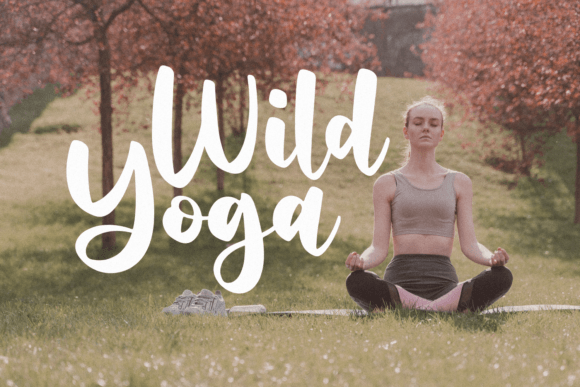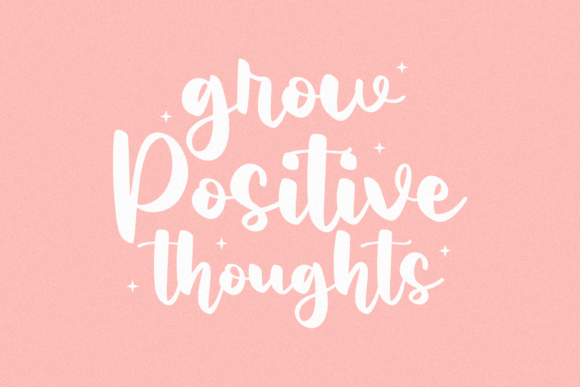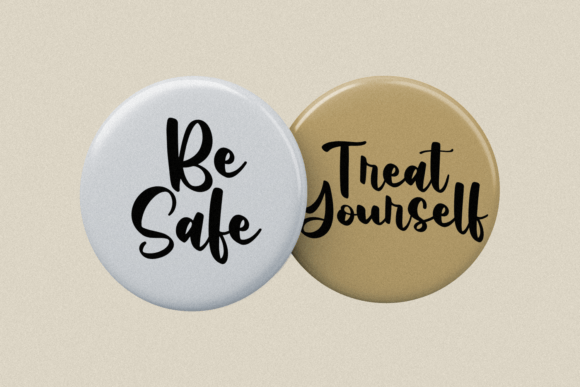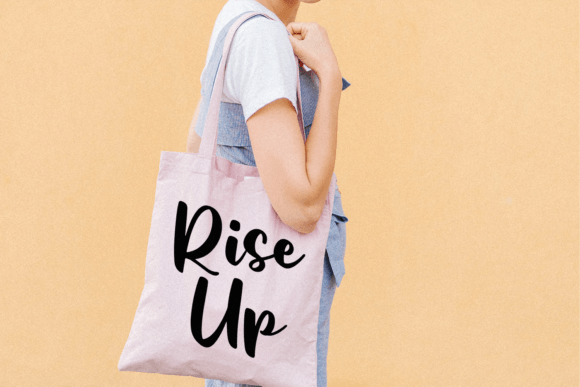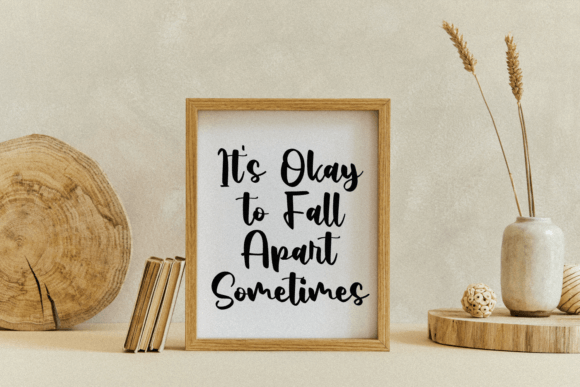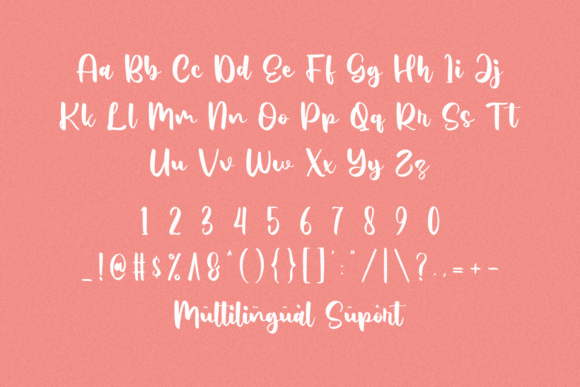
Introduction to Eastlove Font
Have you ever been brainstorming a creative project and suddenly a font pops into your mind, setting the tone for the entire design? For many designers, that moment is what makes all the difference. It’s the spark that ignites the imagination and propels the project forward. For me, that moment came when I discovered the Eastlove Font.
This beautiful handwritten script font is a game-changer for any design project that requires a touch of elegance and sophistication. With its classic, boho, and feminine vibe, the Eastlove Font is perfect for everything from wedding projects and signatures to album covers and logos. Whether you’re looking for a high-quality design resource or just want to add a personal touch to your social media posts, this font is a must-have in your collection.
Key Features of Eastlove Font
- High-quality design resource ideal for creative projects and personal use.
- Comes with transparent background, making it perfect for layered designs and seamless blending.
- Font size: 1000 glyphs, ensuring a comprehensive set of characters for diverse creative projects.
- Unique, stylish design that adds a touch of elegance to any project, making it a standout design resource.
Honest Review: Eastlove Font
What works well: ✨ The Eastlove Font offers a high-quality design that’s perfect for modern designs. The font is highly customizable, making it ideal for logo designs and branding materials. The font also comes with a transparent background, which is a great feature for designers who want to create seamless designs.
Here are some of the key features of the Eastlove Font:
- Perfect for modern designs
- Customizable
Limitations: ⚠️ The Eastlove Font is limited to a single weight and style, which may not be suitable for designers who need a wide range of font options. Additionally, the font may not be compatible with all design software.
Overall, I’m impressed with the Eastlove Font. It’s a great resource for designers who want to add some style to their creative project without breaking the bank. While it has some limitations, it’s a solid choice for anyone looking for a high-quality font.
Tips for Getting the Most Out of Eastlove Font
To get the most out of Eastlove Font, use it in creative projects such as invitations, posters, and social media graphics. You can also use it in conjunction with other design resources, such as images and graphics, to create high-quality designs. Additionally, consider using Eastlove Font in free download templates to save time and enhance your designs.
Eastlove Font is commonly used in design projects that require a unique and creative touch. Some common use cases include:
- Event posters and flyers
- Social media graphics and banners
Alternatives to Eastlove Font
The Great Vibes Font is a high-quality, handwritten font perfect for creative projects that require a touch of elegance and sophistication. It features a transparent background, making it ideal for use on images or as a design resource. Great Vibes Font is a great alternative to Eastlove Font for designers who want a more refined and sophisticated look.
When to use: Wedding invitations, luxury branding, high-end fashion projects
The Alex Brush Font is a beautiful, handwritten font that exudes a sense of warmth and creativity. It’s a great design resource for projects that require a personal touch, and its transparent background makes it easy to use on images. Alex Brush Font is similar to Eastlove Font in its elegant and sophisticated feel, but with a more subtle and understated approach.